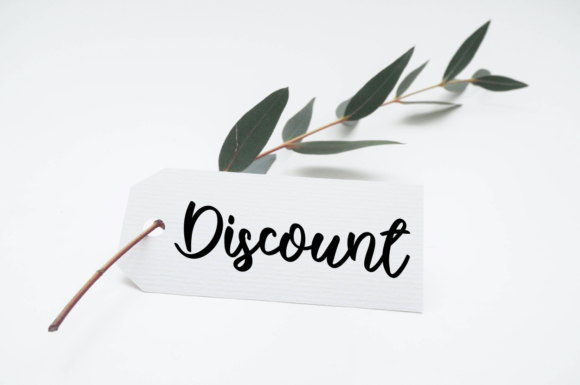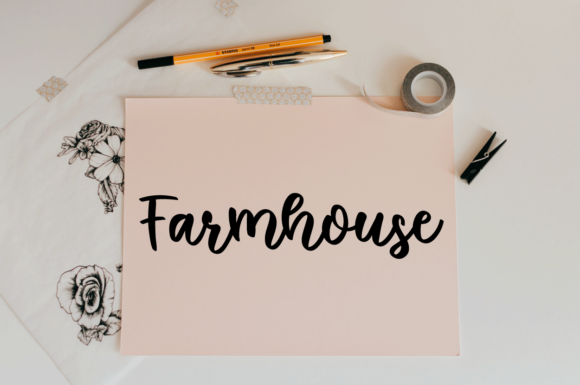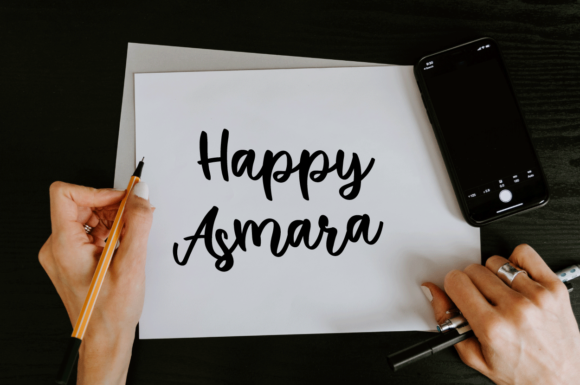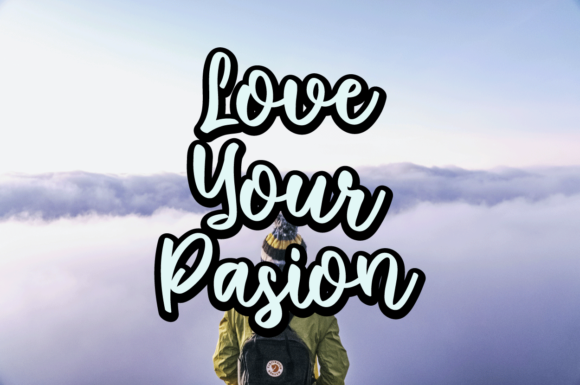
Introduction to Lovely Soulmate Font
Lovely Soulmate is a sweet, romantic and round lettered script font.
It looks stunning on wedding invitations, thank you cards, quotes, greeting cards, logos, business cards and every other design which needs a customized touch .
Key Features of Lovely Soulmate Font
Why Choose Lovely Soulmate Font?
Lovely Soulmate Font offers exceptional quality and versatility, making it a valuable addition to your design toolkit. Whether you’re creating for personal projects or commercial use, Lovely Soulmate Font delivers professional results.